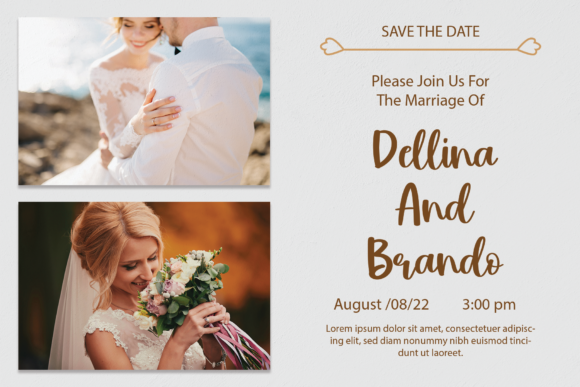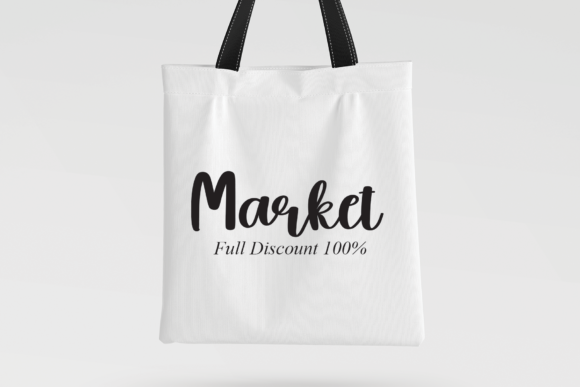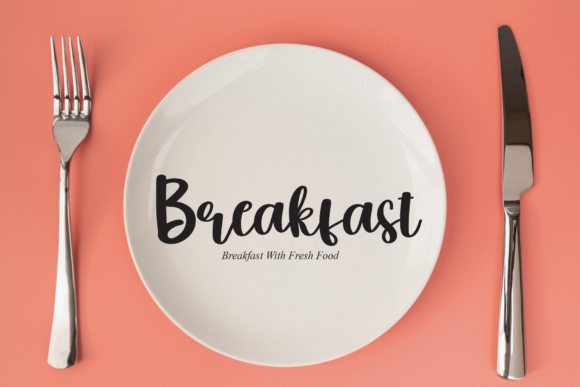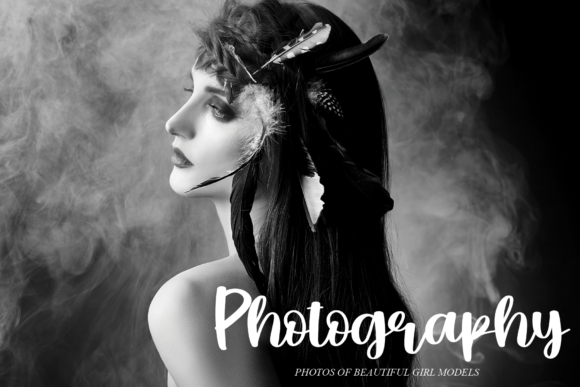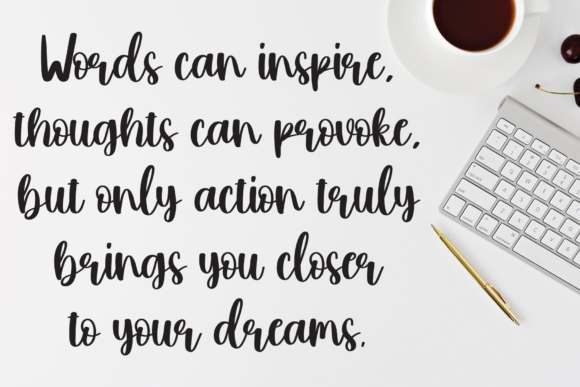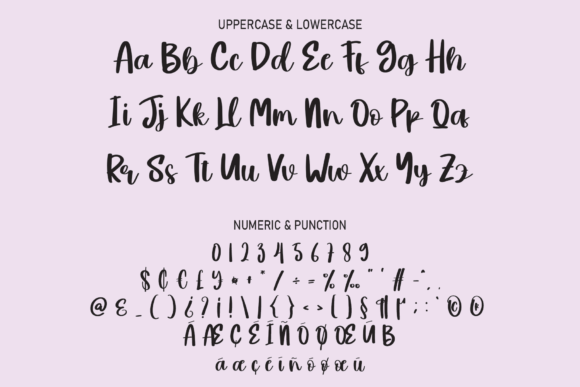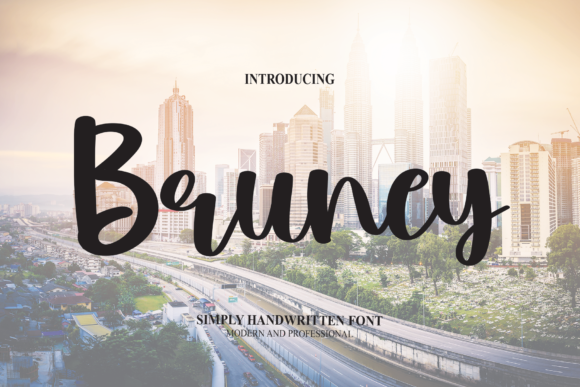
Bruney Font: Elevate Your Design with a Touch of Luxury
Bruney Font is a stunning, light handwritten font that brings a unique feel and a breathtaking impact to any design project. Its elegant and refined aesthetic adds a spark of luxury, making it the perfect choice for designers and crafters looking to create something truly special.
The Beauty of Bruney Font
Bruney Font boasts a beautiful, flowing script that exudes sophistication and poise. Its light and airy texture gives it a sense of freedom and spontaneity, as if the words are dancing across the page. The font’s unique feel is both modern and timeless, making it versatile enough to be used in a wide range of design applications.
What Makes Bruney Font So Special?
So, what sets Bruney Font apart from other fonts? Here are just a few features that make it a standout:
- Unique feel: Bruney Font has a distinct, hand-crafted feel that sets it apart from more traditional fonts.
- Luxury aesthetic: The font’s elegant and refined design makes it perfect for high-end branding, packaging, and advertising projects.
- Versatility: Bruney Font can be used in a wide range of design applications, from digital projects to print materials.
- Easy to read: Despite its elegant and refined design, Bruney Font is still easy to read, making it perfect for body text and headlines.
How to Use Bruney Font in Your Design Projects
Bruney Font is incredibly versatile, making it suitable for a wide range of design projects. Here are just a few ideas to get you started:
- Branding and packaging: Use Bruney Font to create luxurious and eye-catching branding and packaging designs that will help your clients stand out.
- Wedding and event design: Add a touch of elegance and sophistication to your wedding and event designs with Bruney Font.
- Digital design: Use Bruney Font in your digital design projects, such as website headers, social media graphics, and email marketing campaigns.
- Print design: Bruney Font is perfect for print design projects, such as business cards, brochures, and posters.
Tips for Getting the Most Out of Bruney Font
Here are a few tips for getting the most out of Bruney Font:
- Experiment with different sizes: Bruney Font looks great in a variety of sizes, from large headlines to smaller body text.
- Play with color: The font’s elegant design looks great in a range of colors, from bold and bright to soft and pastel.
- Mix and match: Don’t be afraid to mix and match Bruney Font with other fonts to create a unique and eye-catching design.
Bruney Font is a beautiful and light handwritten font that adds a touch of luxury to any design project. Its unique feel, elegant aesthetic, and versatility make it a must-have for designers and crafters looking to create something truly special. Whether you’re working on a branding project, wedding design, or digital project, Bruney Font is sure to elevate your design and leave a lasting impression.